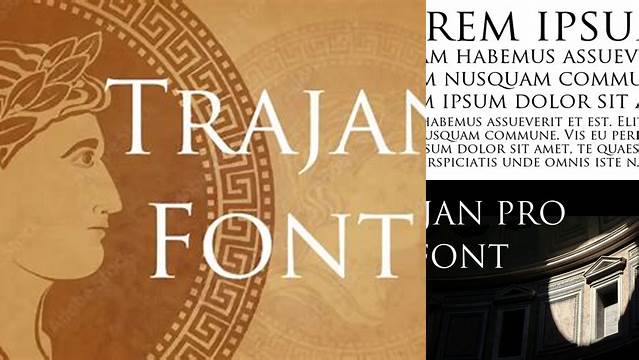
Trajan Font Download Free: A Comprehensive Guide
Welcome, typography enthusiasts! Are you looking to infuse your projects with a touch of timeless elegance? You've come to the right place! This comprehensive guide will walk you through everything you need to know about the Trajan Font, its rich history, and, most importantly, how to snag a Trajan Font download free of charge. Get ready to elevate your designs with this iconic typeface! The Trajan font, with its roots deeply embedded in Roman history, continues to captivate designers across various fields. Its classic style, marked by clean lines and a sense of authority, makes it perfect for a wide range of applications. Whether you're a seasoned designer or just starting out, understanding the nuances of Trajan and how to access it can significantly enhance your creative endeavors. So, let's dive in and explore the world of Trajan!
H2: The Captivating History and Origins of the Trajan Font
Guys, let's rewind the clock and journey back to ancient Rome! The Trajan font, as we know and love it, draws its inspiration from the inscriptions on Trajan's Column, a monumental structure erected in Rome around 113 AD. The inscriptions on the column are renowned for their perfect proportions, elegant serifs, and impeccable craftsmanship. These letterforms served as a model for the Trajan font, which aimed to replicate the beauty and precision of the original carvings. The design of the Trajan font embodies the essence of Roman artistry, reflecting a time when artistry and meticulous attention to detail were paramount.
The creation of the Trajan font was not a spontaneous event; rather, it was the result of careful study and interpretation of the Roman inscriptions. Designers meticulously examined the letterforms, analyzing their structure, weight, and the spaces between them. Their goal was to capture the essence of the originals and translate them into a digital format. The designers' dedication to authenticity is evident in the font's characteristics. Each stroke, serif, and curve mirrors the forms carved into stone centuries ago. The enduring appeal of the Trajan font lies in its ability to evoke a sense of history and sophistication. It reminds us of a time when communication was an art form, carefully crafted and imbued with meaning. Today, this timeless typeface continues to inspire designers and is widely used in various applications, from branding to editorial design. It's a testament to the enduring power of Roman design, proving that classic aesthetics never truly go out of style. The next time you see this font, remember the rich history embedded in each character!
Moreover, the Trajan font carries a symbolic weight, representing the power and authority of the Roman Empire. Its association with such a significant historical period gives it a unique position in the world of typography. When we use this font, we are not only employing a beautiful design; we are also invoking a sense of grandeur and historical resonance. That's what makes Trajan so much more than just a typeface; it's a connection to the past. Using this font, especially on logos and headings, can instantly add a layer of credibility and sophistication to a design. It whispers of tradition, strength, and enduring quality. This font's journey from ancient stone carvings to digital screens is a testament to the enduring power of great design and its ability to transcend time. So, when you explore the Trajan font download free options, keep in mind the story behind this incredible typeface!
H3: The Design Principles Behind Trajan's Timeless Appeal
The magic of the Trajan font lies in its adherence to fundamental design principles. The font's appeal is directly related to the Roman inscriptions on Trajan's Column. These inscriptions were not just carved; they were meticulously planned to convey an air of monumentality and clarity. The clarity of the font allows it to be easily readable and very effective when it comes to communication. The serifs, the small decorative strokes at the ends of the letterforms, are perfectly proportioned, giving the font a sense of balance and harmony. The letterforms themselves are carefully crafted to provide visual consistency. There are no random or unexpected elements in the design; everything works in concert to create a cohesive whole.
Furthermore, the designers of the Trajan font paid careful attention to the negative space around and within the letters. The white space is just as important as the black, creating a sense of openness and allowing the letters to breathe. This attention to detail is a hallmark of good design, and it's one reason why the Trajan font has been so enduringly successful. It is not just a pretty face, it is a thoughtful and considered design that puts clarity and readability first. The Trajan font is a masterclass in achieving this balance, showcasing how design and function can work together. This attention to detail extends to the overall layout of the font. The letterforms were designed to be visually consistent, providing a sense of harmony that makes reading a pleasure. The serifs were placed strategically to guide the eye, while the letter spacing was adjusted to optimize readability. This commitment to design excellence ensures that the font continues to hold its own in the modern era.
The construction of each character is also highly considered. The curves and angles are precisely engineered, with each element contributing to the overall visual impact. This precision gives the font a sense of authority and elegance. The careful balance of positive and negative space within the letters is crucial to the font's readability. It allows for easy recognition of each character, even at smaller sizes. So, when you choose a Trajan font download free, remember that you're not just getting a typeface; you're getting a piece of design history.
H2: Key Characteristics That Define the Trajan Font
Alright, let's talk about the key features that make the Trajan font stand out from the crowd. The first thing you'll notice is its uppercase-only design, which is a throwback to the Roman inscriptions. This uppercase-only style gives the font a sense of formality and gravitas, making it perfect for headlines, titles, and branding. The clean lines and elegant serifs are another defining feature of the Trajan font. The serifs provide a sense of stability and sophistication. This particular aspect makes the font look great and works well in almost any type of design, especially those needing a classic and timeless look. The consistent stroke weight is another crucial characteristic. The uniform thickness of the strokes gives the font a sense of visual balance and clarity. Each letterform is crafted with precision, ensuring that all the characters work together in harmony.
The overall visual impression is one of authority, elegance, and timelessness. This is what makes it a favorite among designers and a perfect choice for projects where you want to convey a sense of history, prestige, or sophistication. Its visual qualities make it versatile and suitable for a wide array of projects. Whether you're working on a logo, a book cover, or a website header, the Trajan font can instantly elevate your design. The meticulous attention to detail makes it a robust and reliable choice for anyone looking for a font that delivers both style and substance. The font’s ability to be used in multiple ways and designs is part of its widespread use. Its versatility has helped it stay a popular font throughout the years. This font is all about that perfect balance of aesthetics and functionality. When you do a Trajan font download free, you are accessing a piece of design history.
H3: Examining the Uppercase-Only Design of Trajan
The decision to embrace an uppercase-only design is a fundamental part of the Trajan font's identity. Inspired by Roman inscriptions, this stylistic choice offers a sense of formality and grandeur that's hard to replicate. This all-caps approach isn't just about aesthetics; it's a statement. It evokes a sense of authority, power, and historical weight. It's a visual cue that immediately grabs the attention of the viewer, conveying the message with an unmistakable touch of class. This type of design provides a sense of elegance that is suitable for different design needs. Headlines and titles are prime areas where the uppercase-only design of Trajan font shines. It allows them to stand out and make an impact, drawing the viewer's eye and conveying a sense of importance. When you choose this font, you're not just choosing a typeface; you're choosing a design concept that is instantly recognizable and respected.